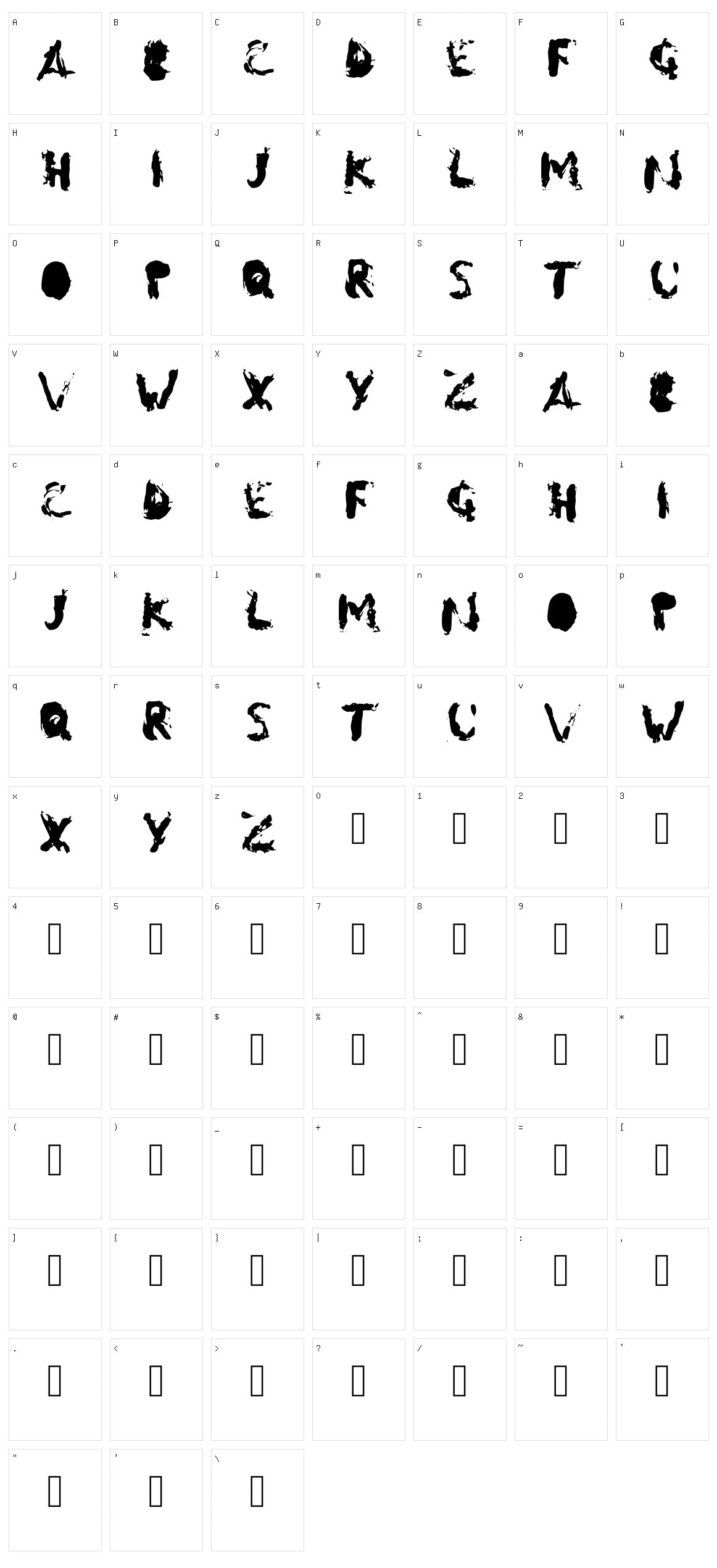
The free font Impressions is carefully designed by gracemitchelldesign, showcasing a thoughtful balance of creativity and usability and falls under the Trash font style. When you download the ZIP file, it contains only 13.58 KB of font files, making it lightweight and quick to download. Please review the license details below to understand permitted usage and distribution rights. If license information is not available, we recommend using this font for personal projects only or contacting the author directly for commercial usage permissions.